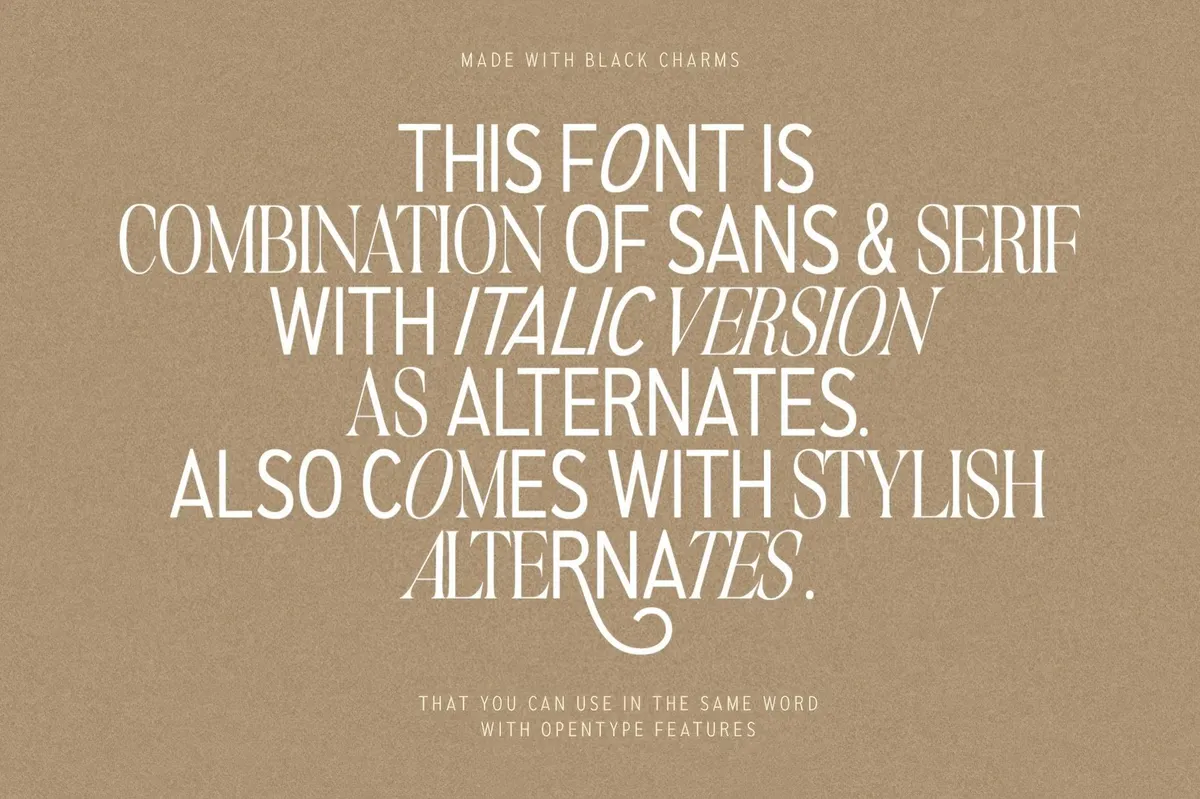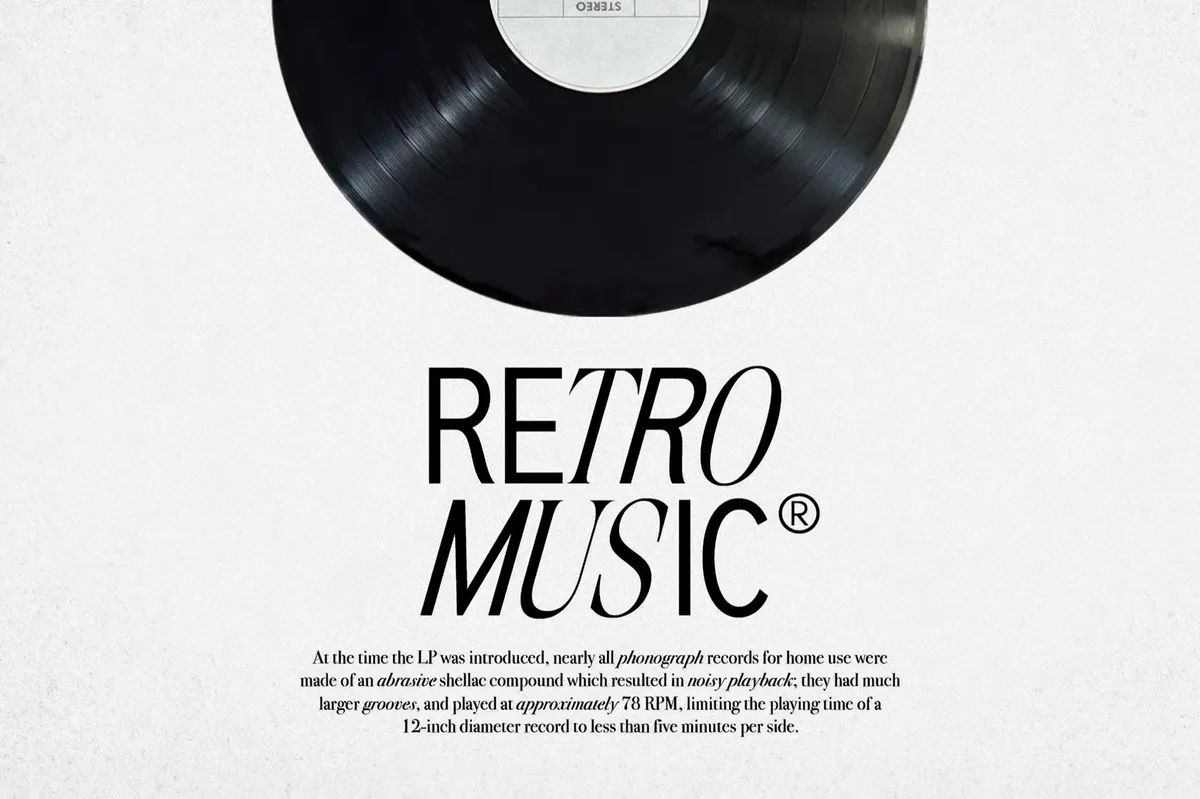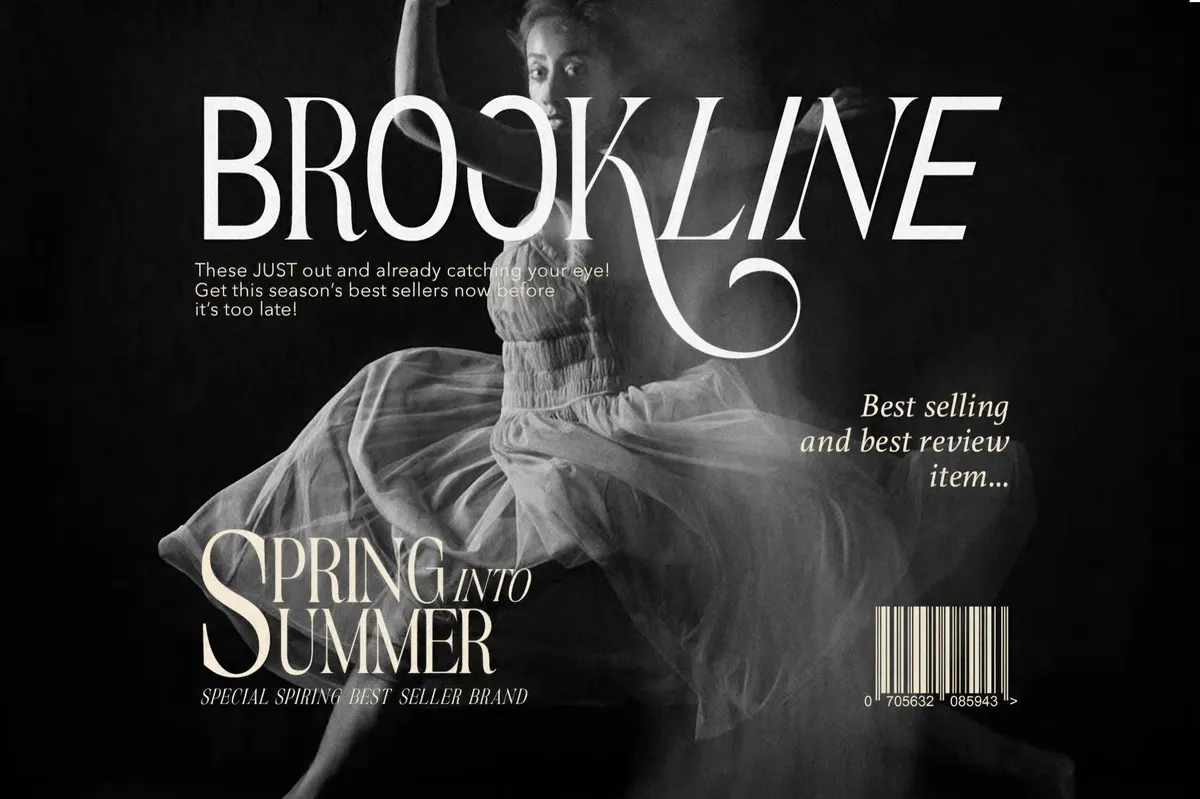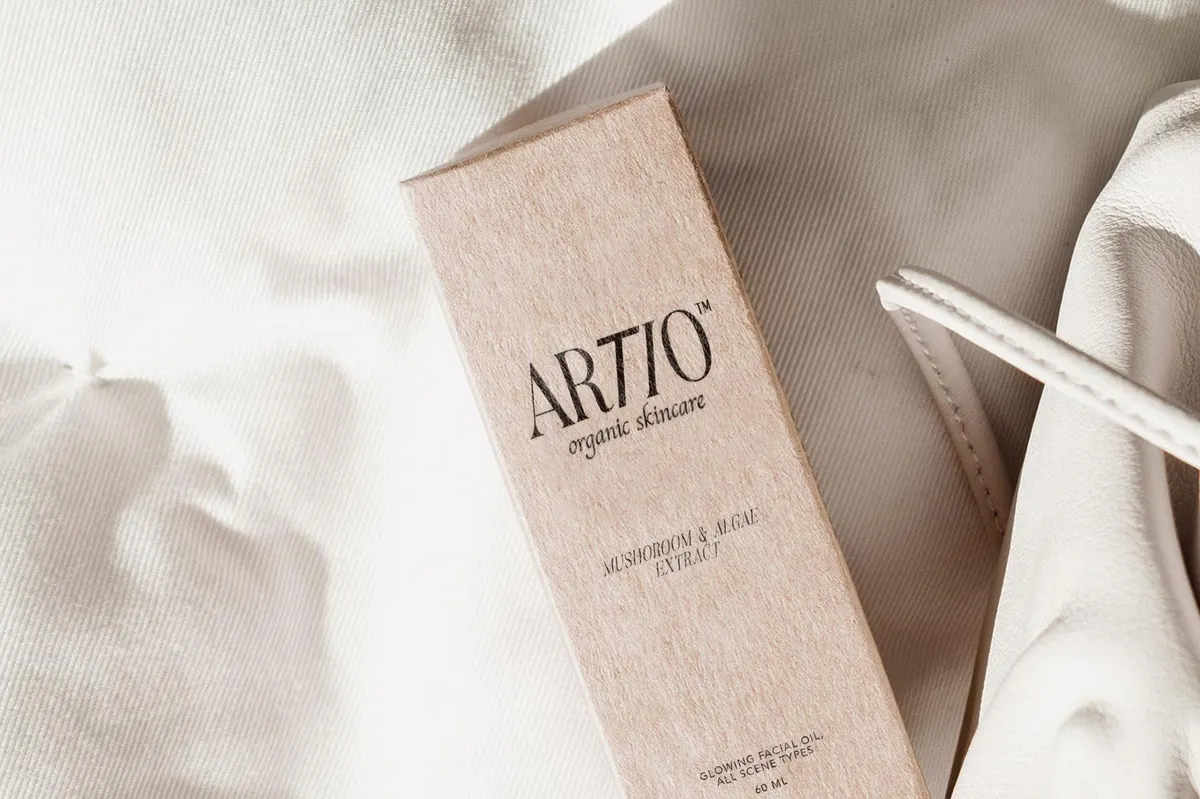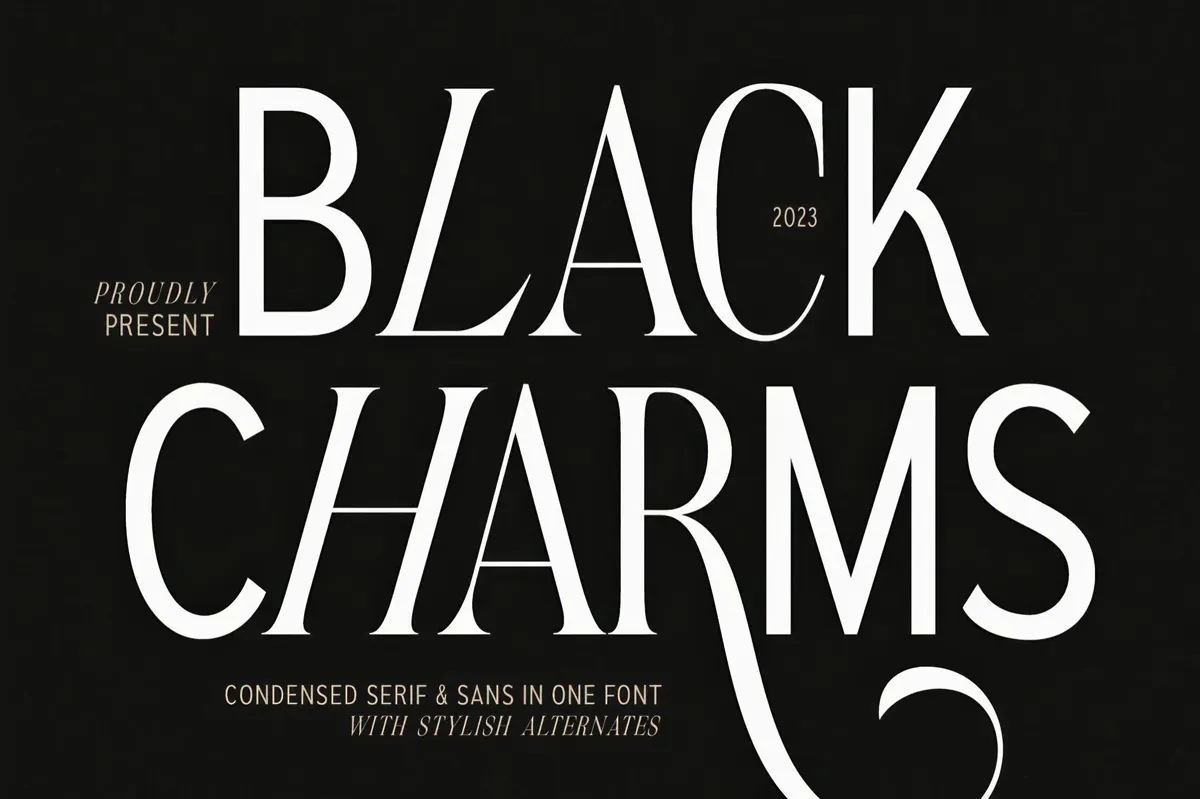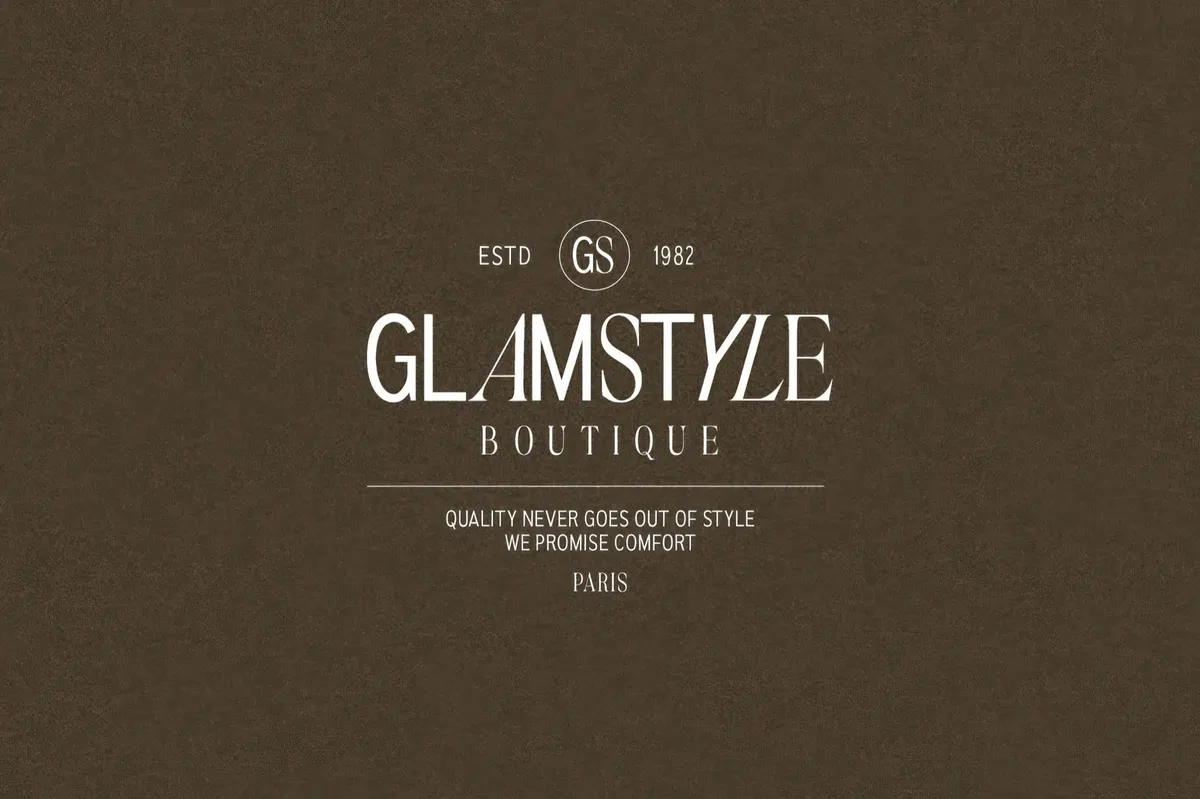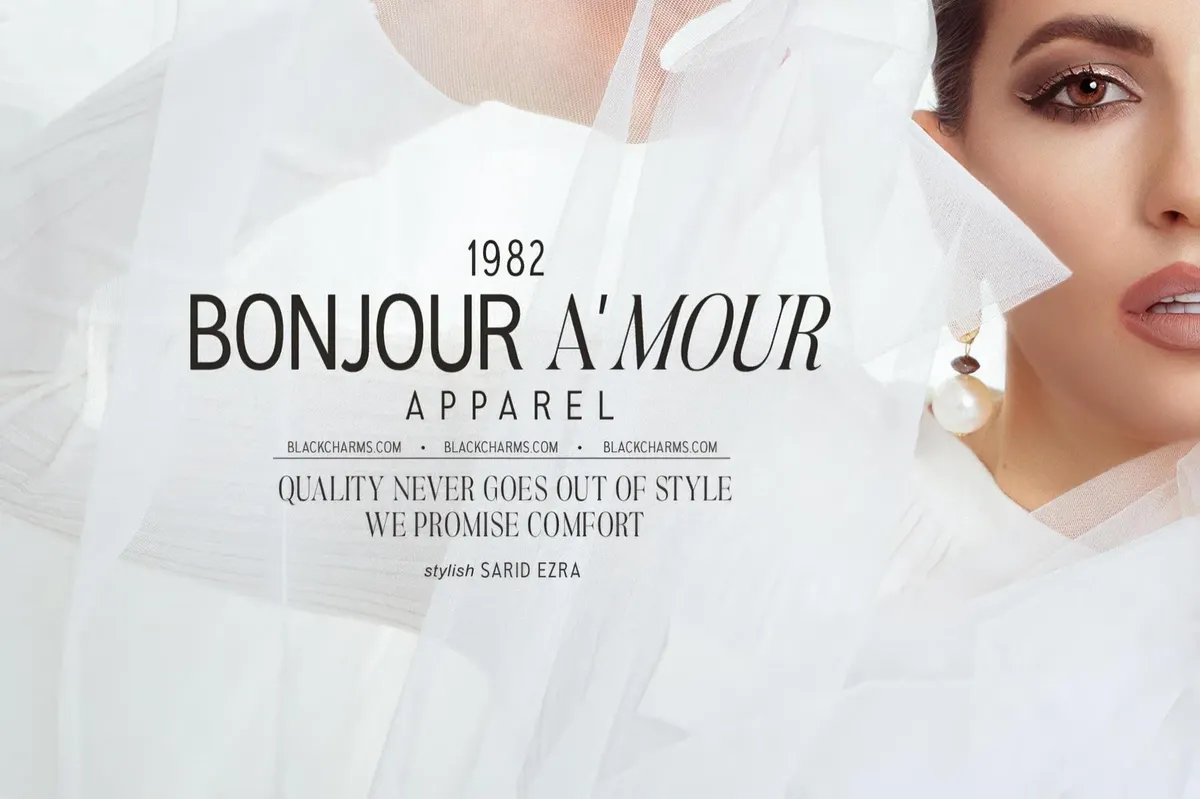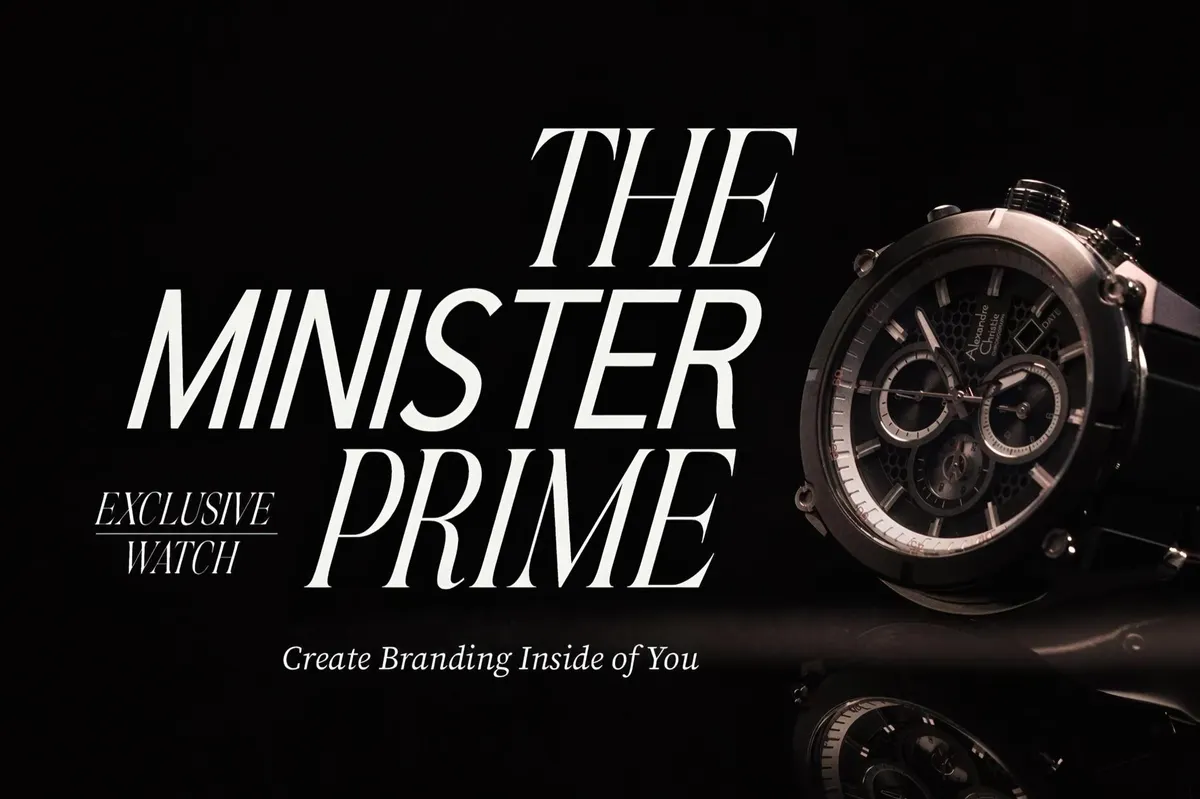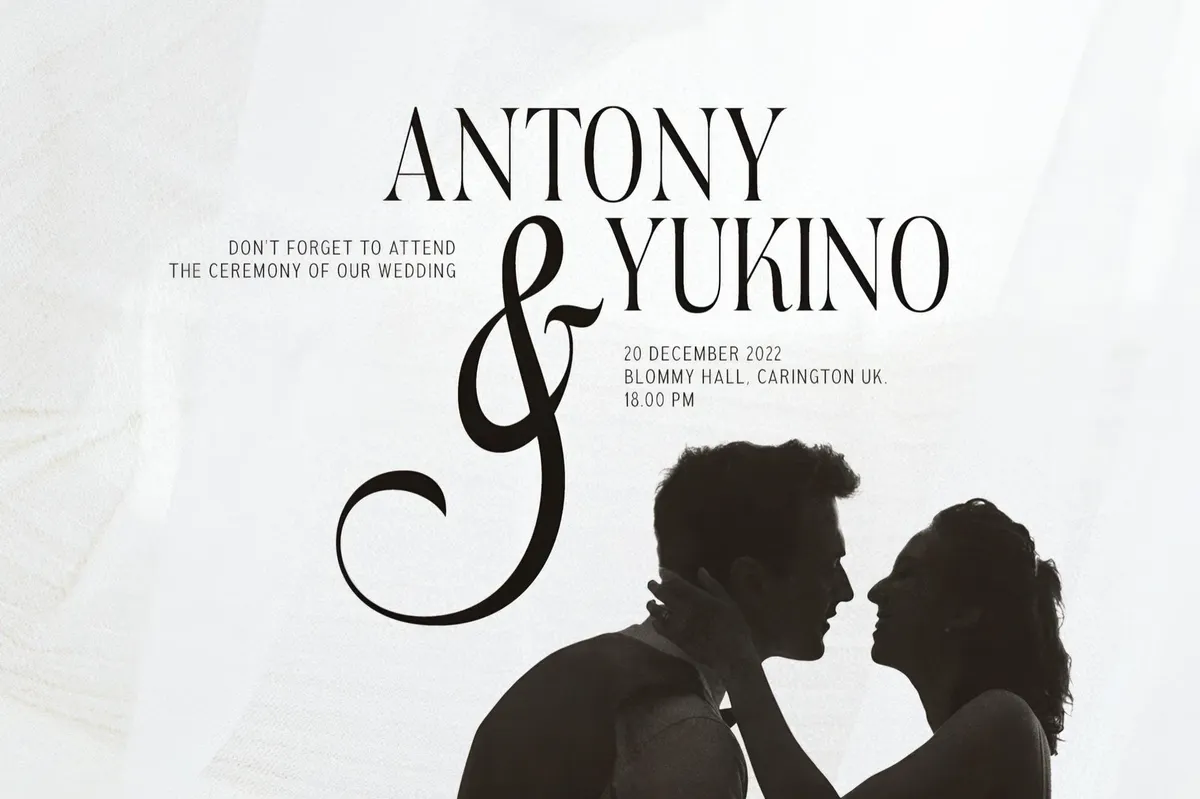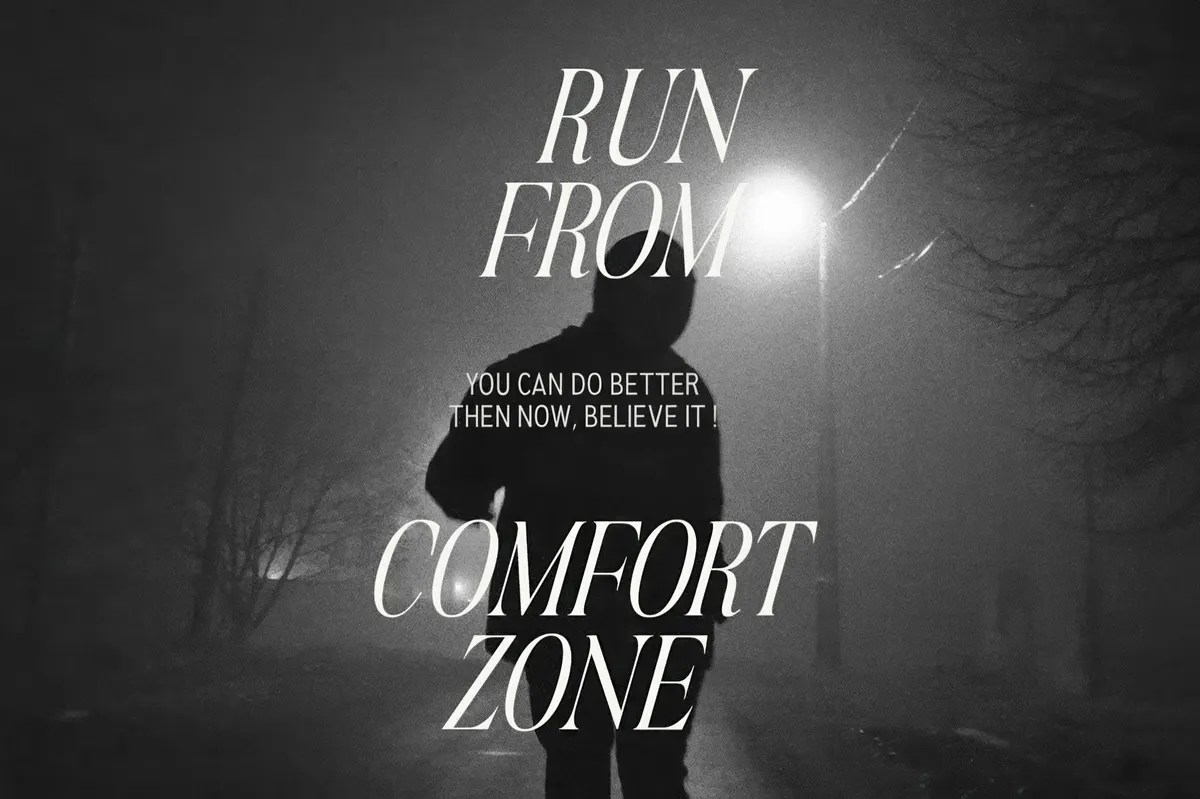
Black Charms — Condensed Font Duo
Black Charms
Black Charms combines a condensed serif with a modern sans-serif, striking a seamless balance between elegance and contemporary edge. The serif typeface boasts high contrast, sharp serifs, and elongated letterforms reminiscent of luxury branding and editorial design. Meanwhile, the sans-serif keeps things clean and versatile, making the Black Charms ideal for high-fashion aesthetics, magazine layouts, logo design, and sophisticated packaging. This all-caps duo includes an italic version for alternates, allowing you to embrace the trend of mixing multiple fonts and styles within a single composition.